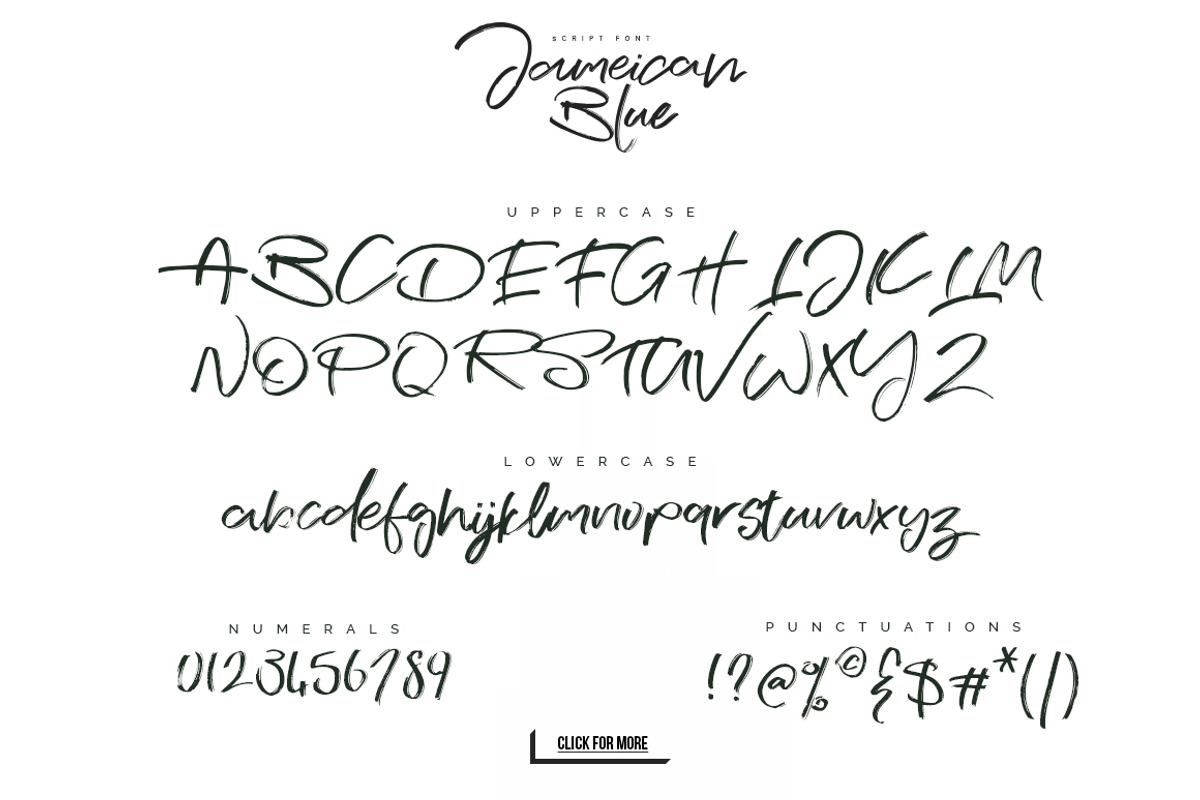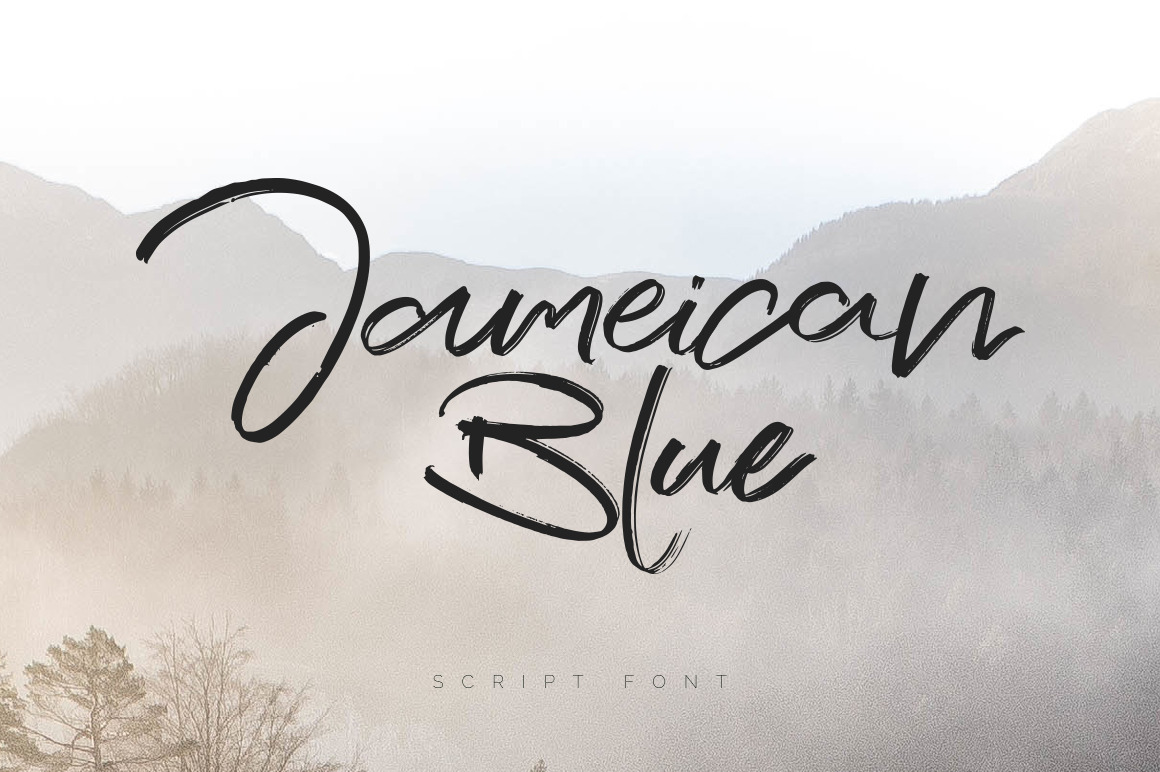
Jameican Blue Font
This is Jameican Blue. Unique. Wild. Attractive.
Intoducing new hand lettered font Jameican Blue every details is natural and untouched. Carefully made. You can create wonders in your designs with the font that has fluent and natural texture. Also Jameican Blue has Stylistic Alternate Characters. So you can enhance the typography with different characters. You can use Jameican Blue Script for your favorite areas. To turn your dreams into reality.